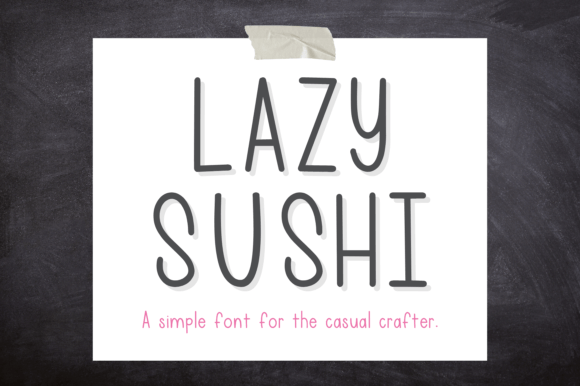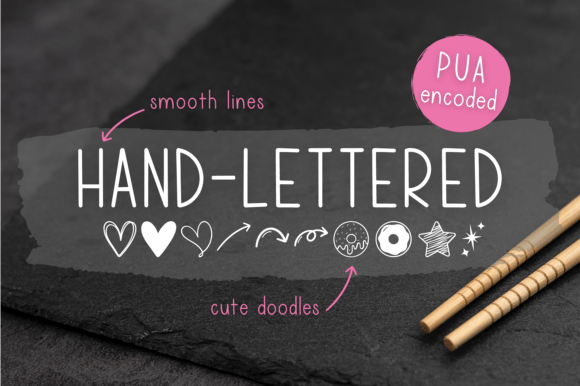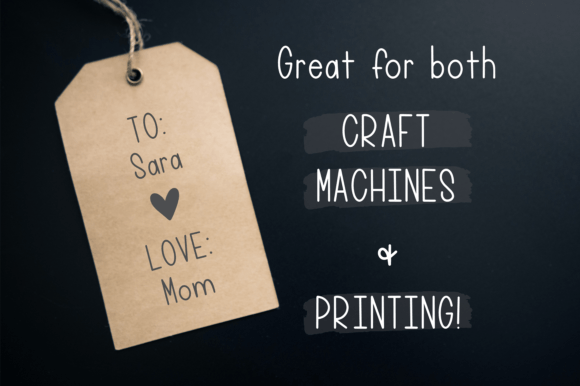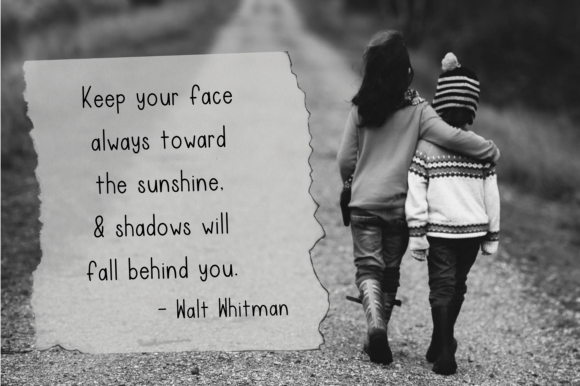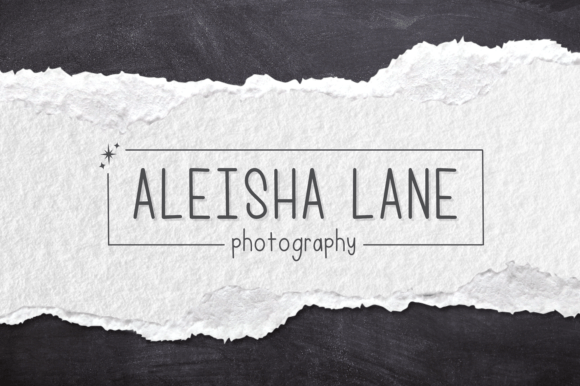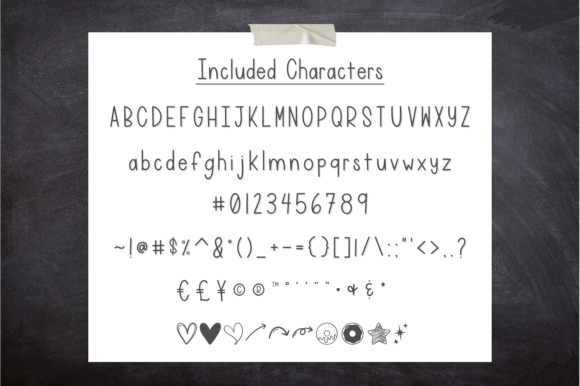
Lazy Sushi Font
About Lazy Sushi Font
Introducing “Lazy Sushi,” a simple handwritten font crafted for the casual crafter. This typeface is designed to bring a relaxed and easygoing vibe to your projects, making it a perfect addition for a variety of creative endeavors. Add Lazy Sushi confidently to your designs, and you’ll love the results it brings to your work.
The simplicity and handwritten charm of Lazy Sushi make it an excellent choice for casual and crafty projects. Whether you’re working on DIY materials, scrapbooking, or any design that requires an easygoing and laid-back touch, this font adds a touch of simplicity and warmth.
In the realm of casual crafting, Lazy Sushi becomes a defining element that adds a handmade and personal feel to your projects. Its simple yet expressive style creates a connection with the audience, making the content more relatable and approachable.
For DIY materials and scrapbooking, Lazy Sushi contributes to a laid-back and crafty atmosphere. The font’s simple and handwritten appeal enhances the overall aesthetics, making your projects more visually appealing and authentic.
The versatility of Lazy Sushi ensures that it can adapt to various design contexts, making it a valuable tool for a range of creative projects. Its casual and simple vibe brings an authentic and relaxed energy to your text.
In summary, Lazy Sushi is more than just a font; it’s a creative tool designed to bring a simple and handwritten style to your casual crafting projects. Whether you’re working on DIY materials, scrapbooking, or any design that needs a laid-back touch, let Lazy Sushi be the font that adds a sense of simplicity and warmth to your creative endeavors.